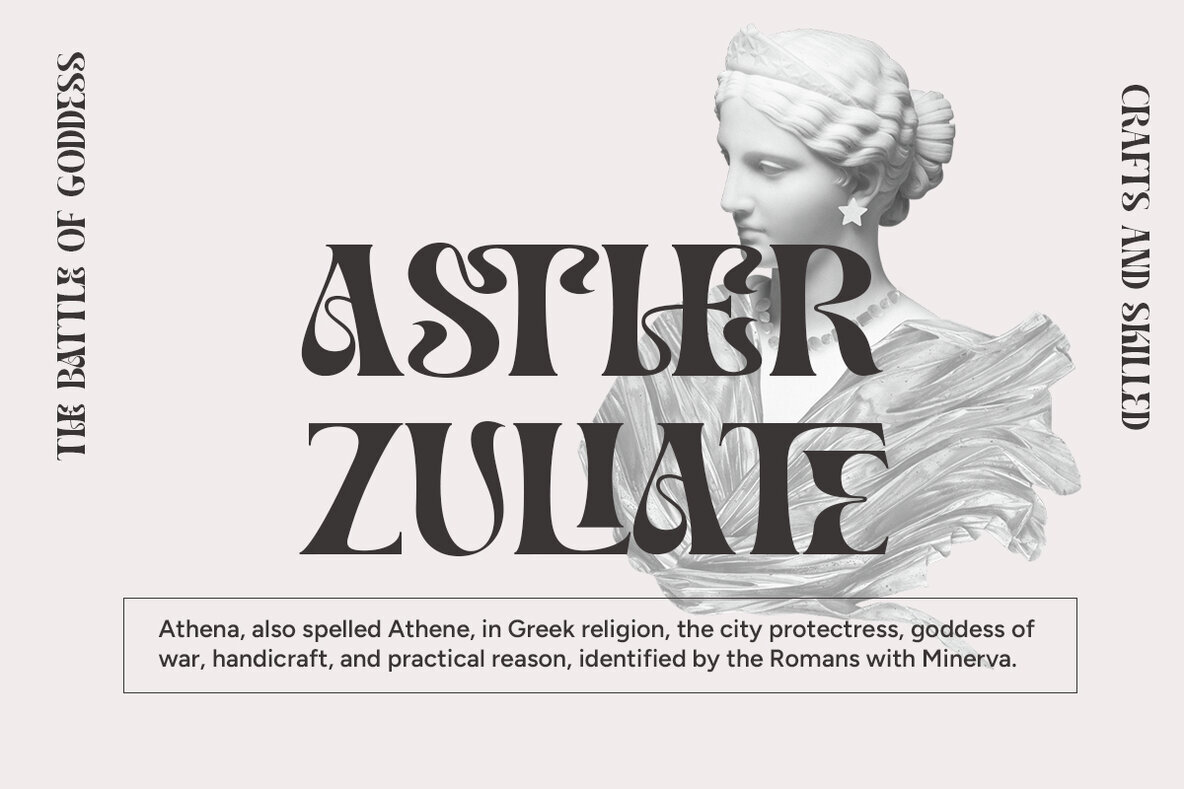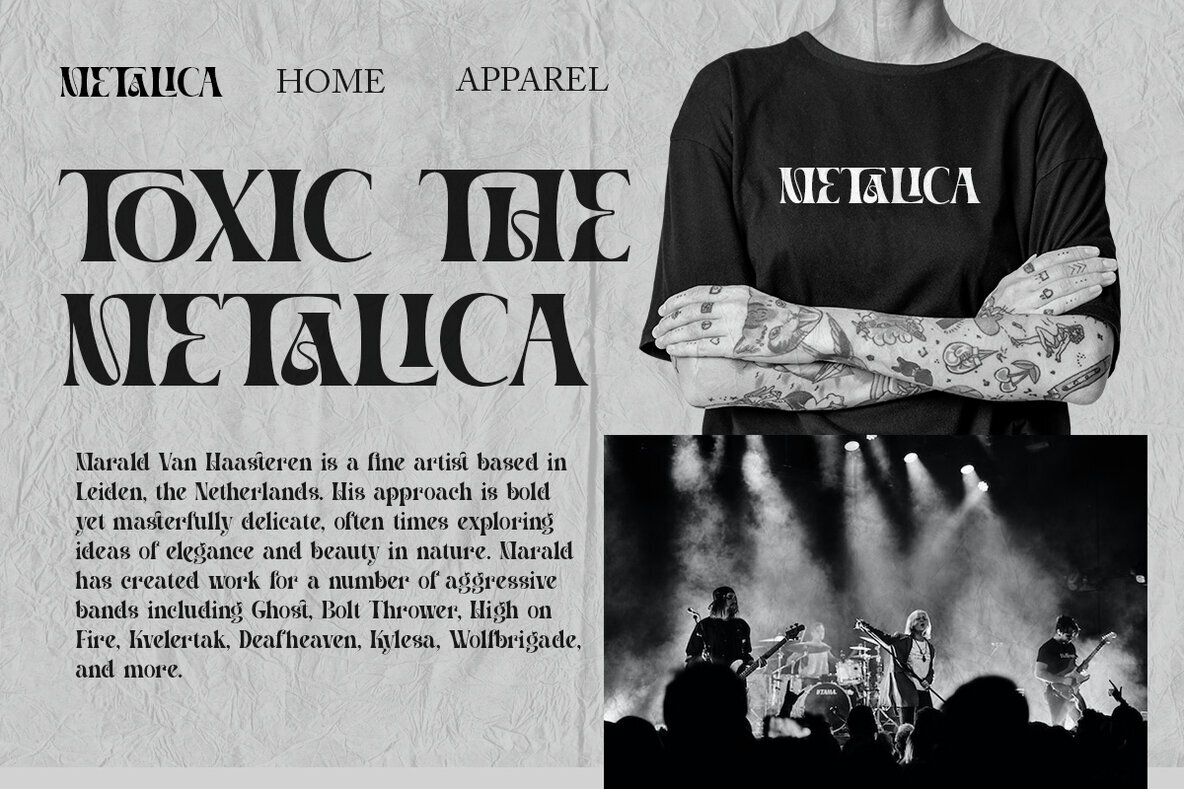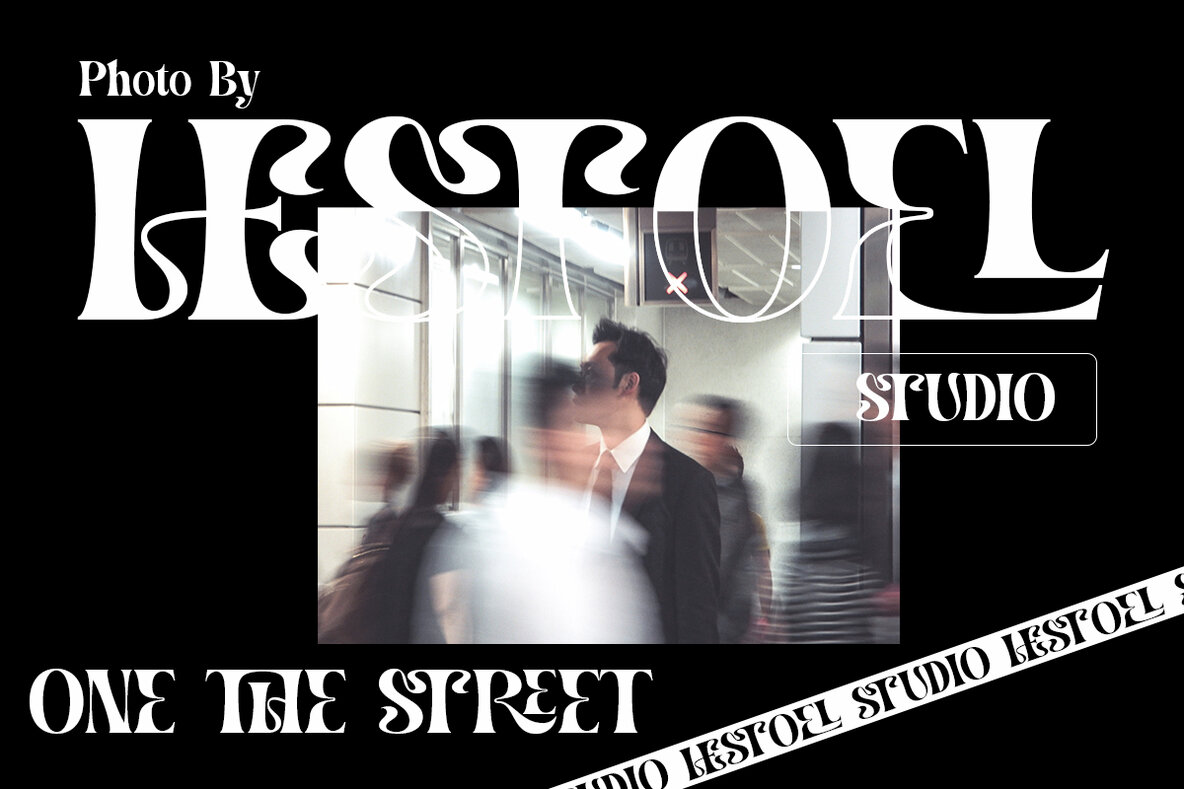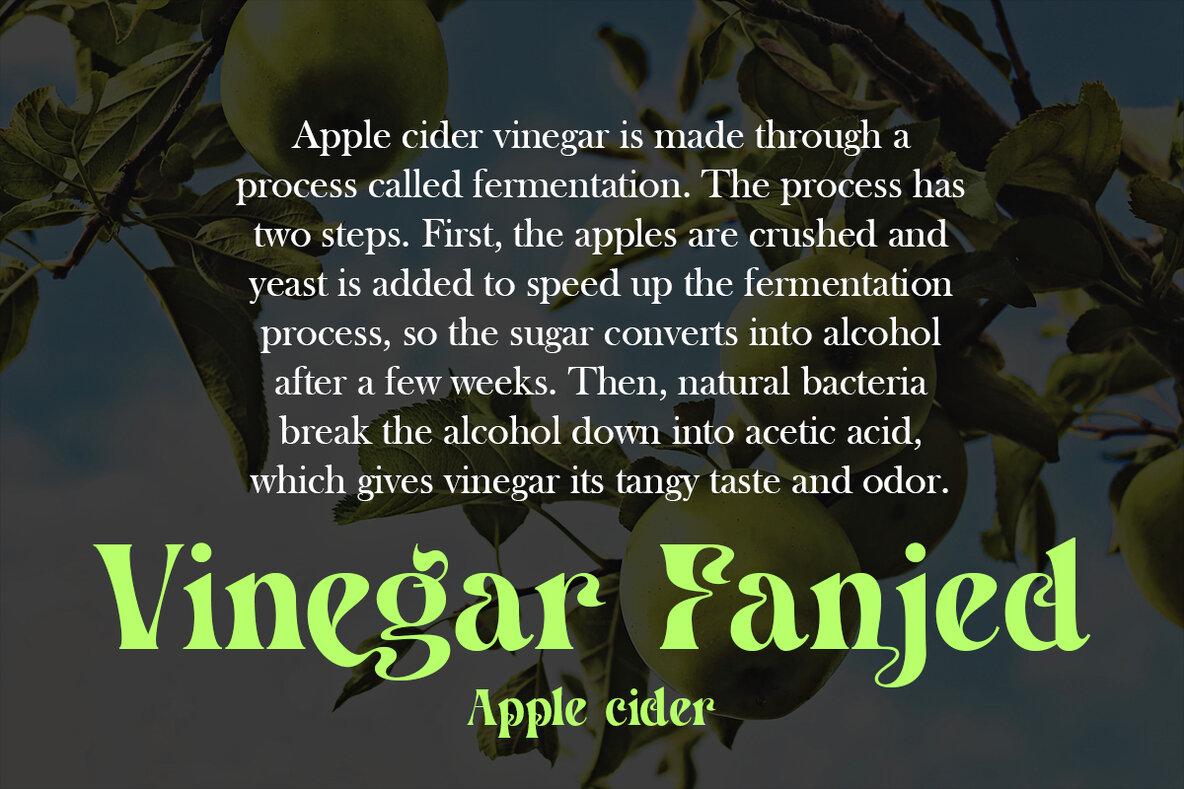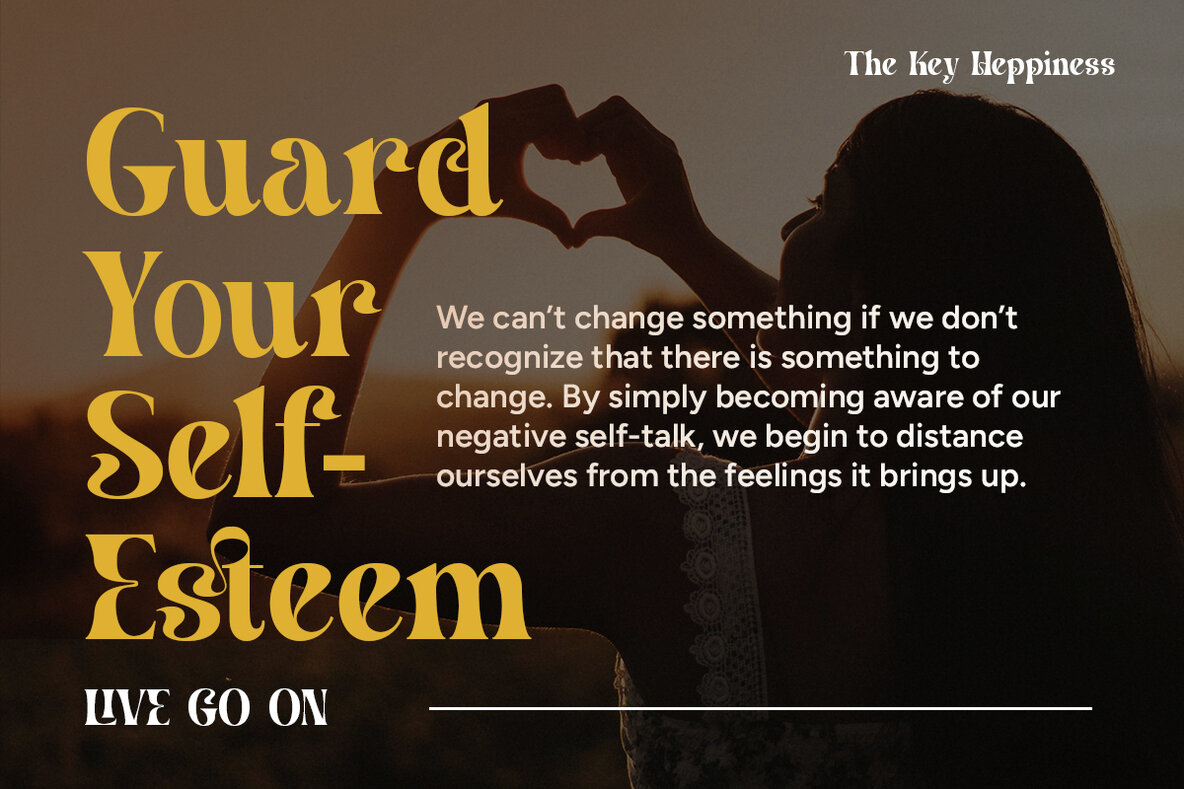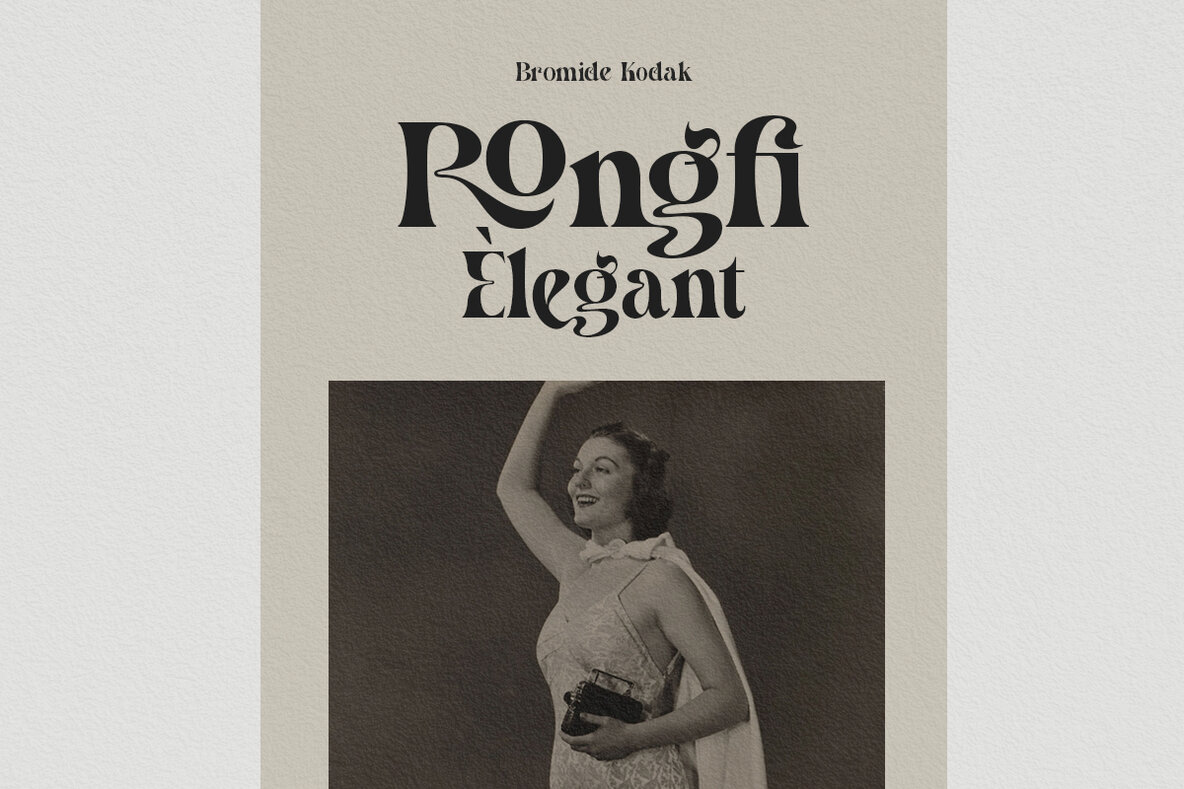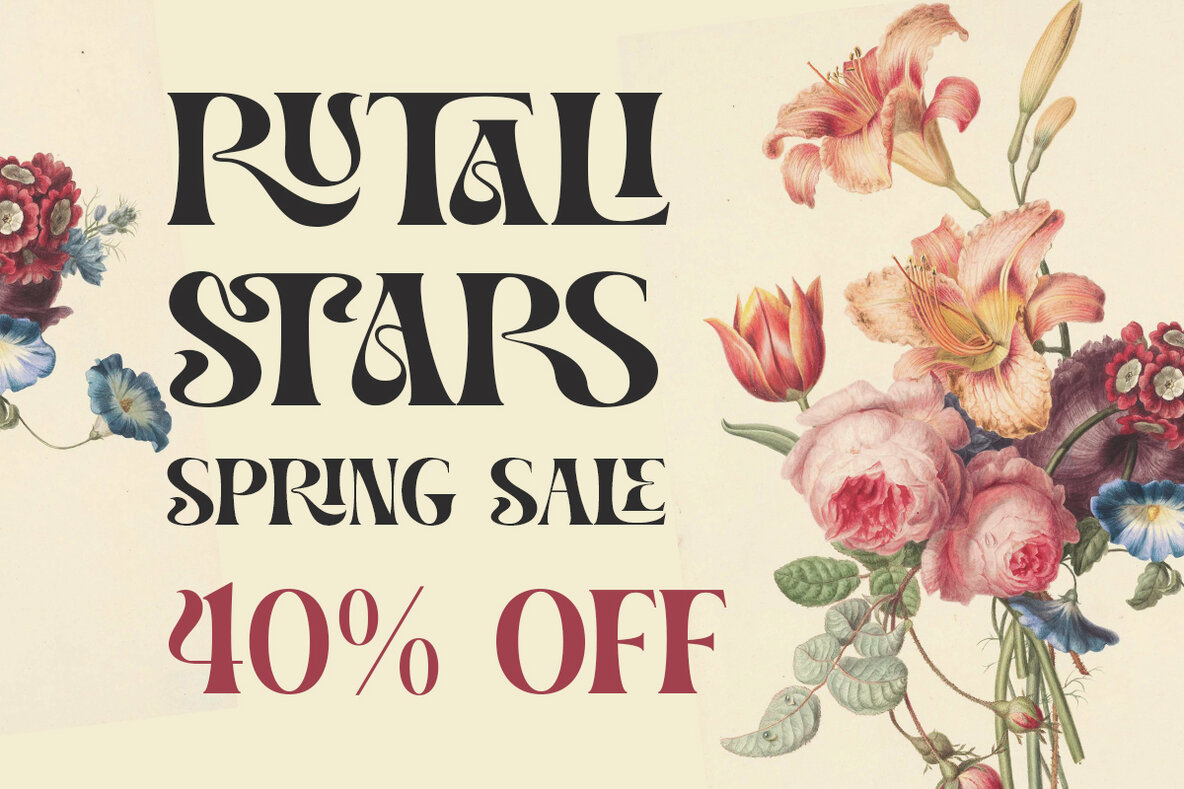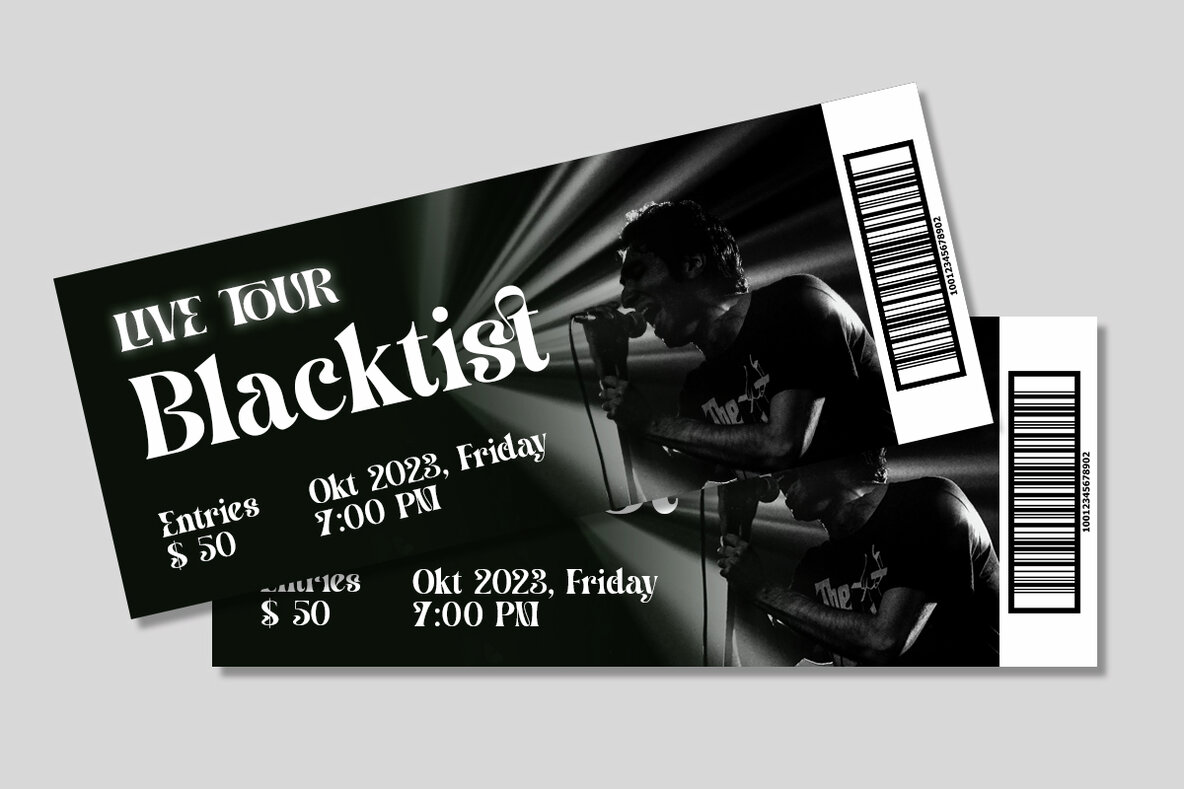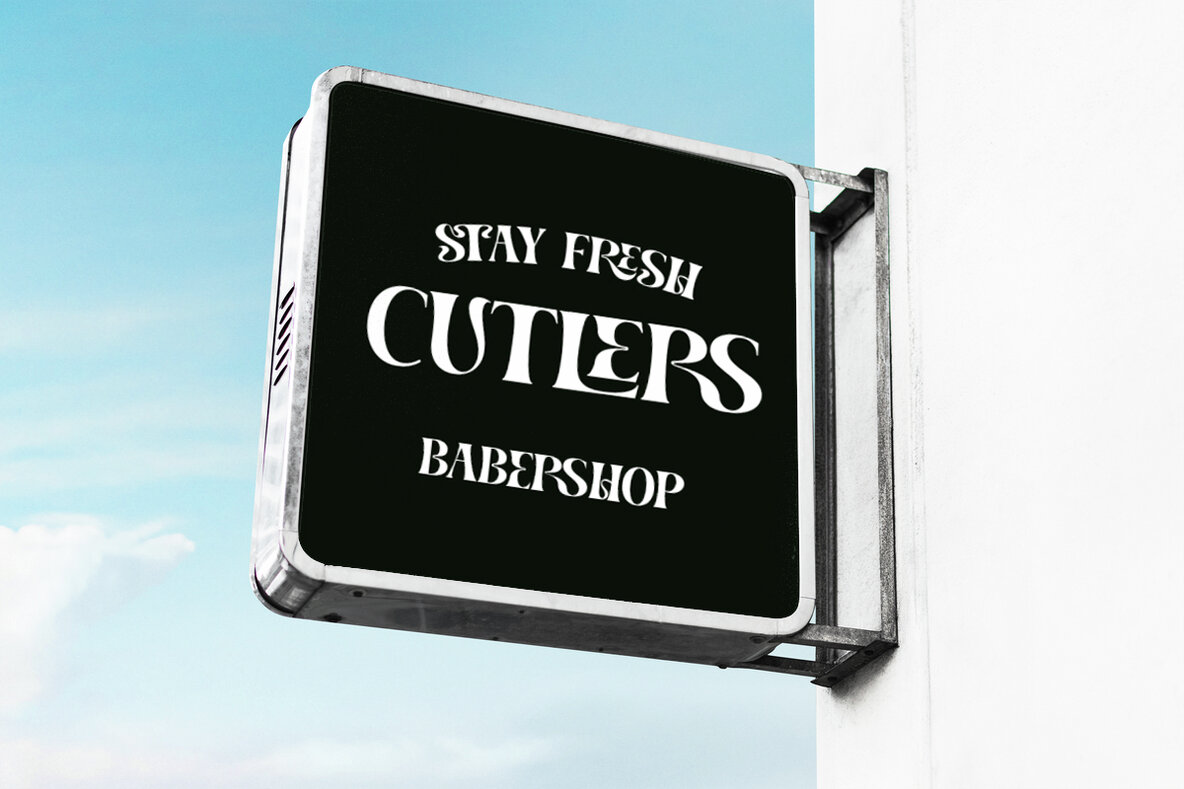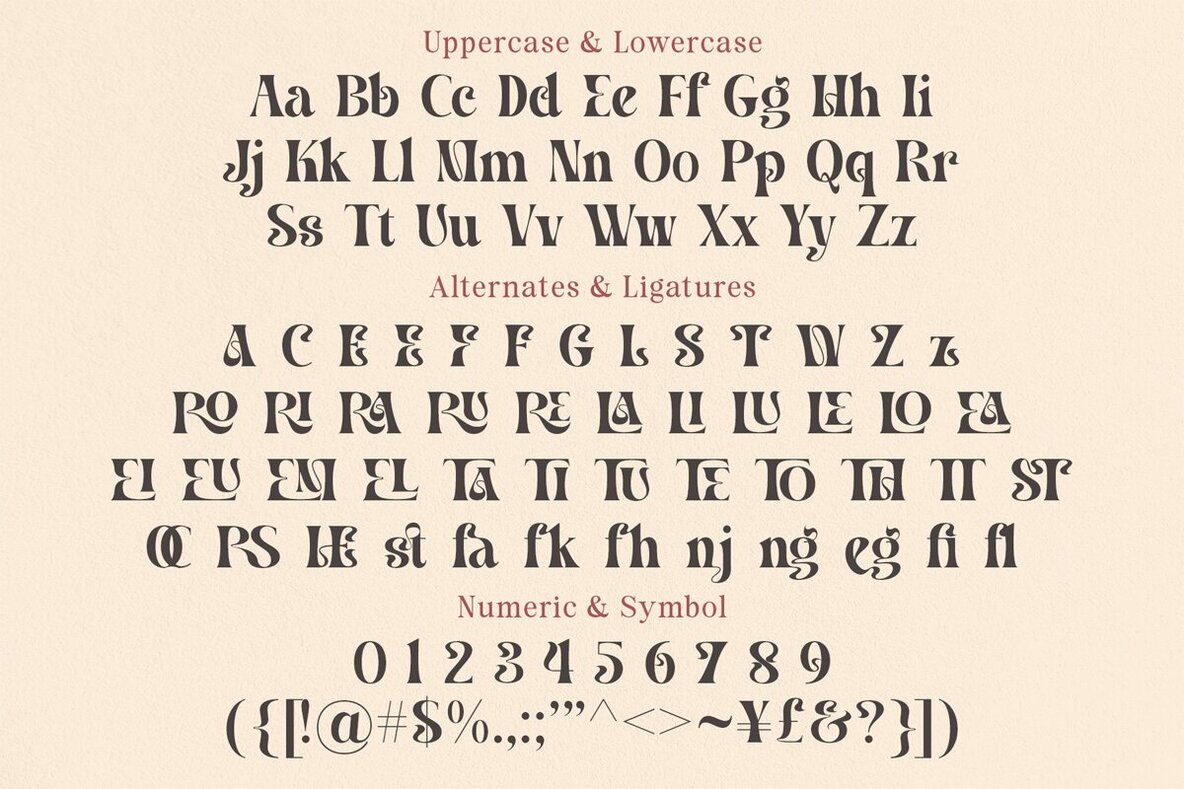
Rostema Font
Rostema Regular
Rostema is a striking blackletter serif display font that elegantly merges traditional style with modern design. This typeface exemplifies the timeless beauty of blackletter fonts, enhanced with a contemporary flair, making it an ideal choice for diverse creative projects. Perfect for posters, branding materials, invitations, and any creative work that calls for a bold and distinctive typeface, Rostema adds a touch of drama and sophistication to your designs. Its unique blackletter serif display style ensures your work stands out and leaves a memorable impression. For any inquiries, please feel free to contact us. Enjoy crafting with Rostema, and thank you for your support!Rostema: A Captivating Blackletter Serif Display Font